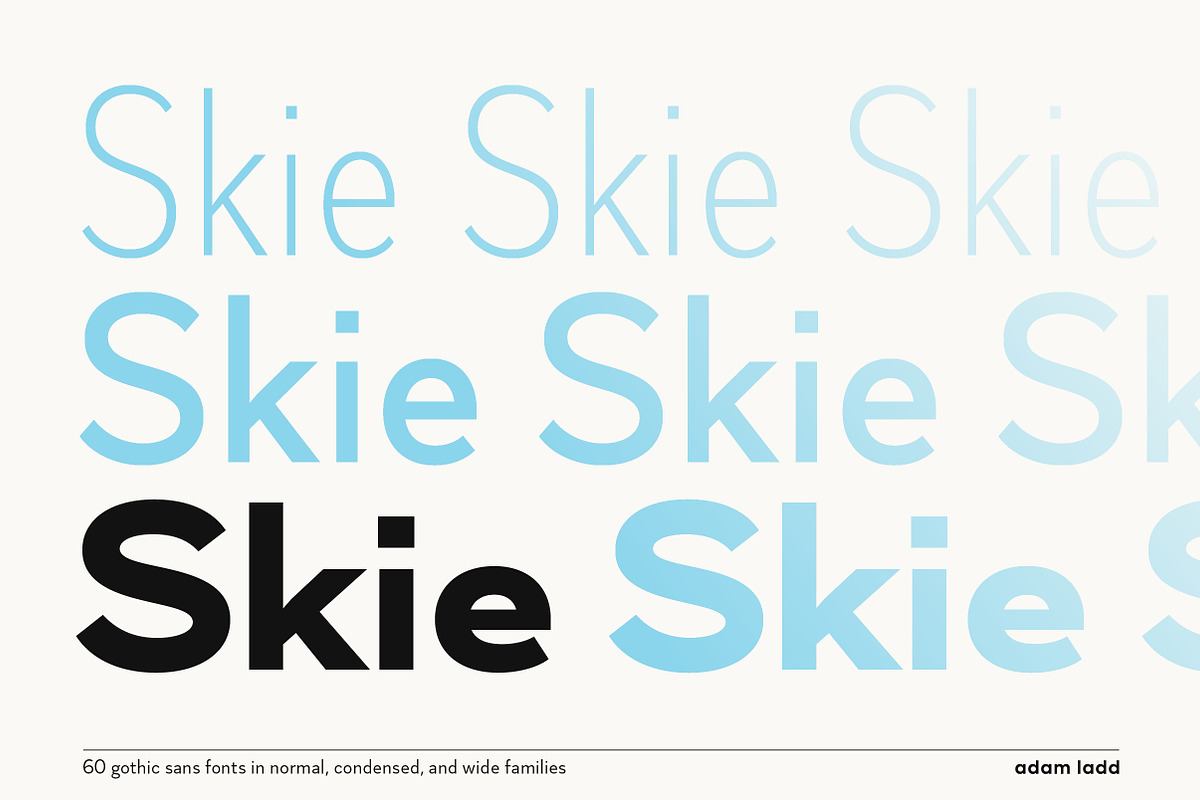
Please note, you must purchase this font for commercial use. However, you can easily download Skie Font Family - 60 Fonts Free Download for personal use and testing purposes. Skie Font Family is an extensive collection of 60 unique and versatile fonts, offering a wide range of weights and styles. Whether you're working on branding, editorial design, websites, or logos, this comprehensive font family provides you with everything you need for any project. With its clean, modern design and flexibility, Skie Font Family - 60 Fonts Free Download ensures that your typography remains stylish and professional across all applications. Download Skie Font Family - 60 Fonts Free Download today and explore its potential before opting for a commercial license.